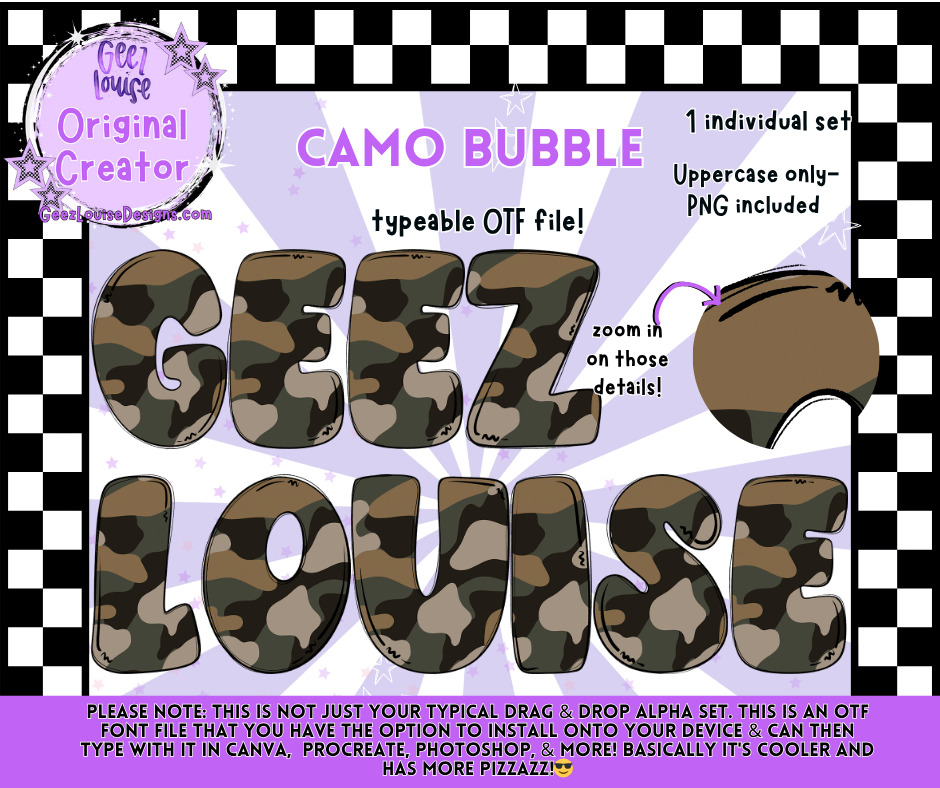
Camo Bubble Typeable OTF Font + PNG Set
Add a bold pop to your designs with the Camo Bubble Typeable OTF Font! 💥
This isn’t your typical drag-and-drop alpha. The Camo Bubble font is a fully typeable OTF file that can be installed on your device and used directly in Canva, Procreate, Photoshop, and more. Each uppercase letter features a hand-drawn camo texture with fun, chunky bubble style details that make every project stand out.
Perfect for:
• Military or outdoorsy themes
• Kids’ designs and boy-mom projects
• Rugged branding or layered text effects
• Eye-catching social media graphics and apparel